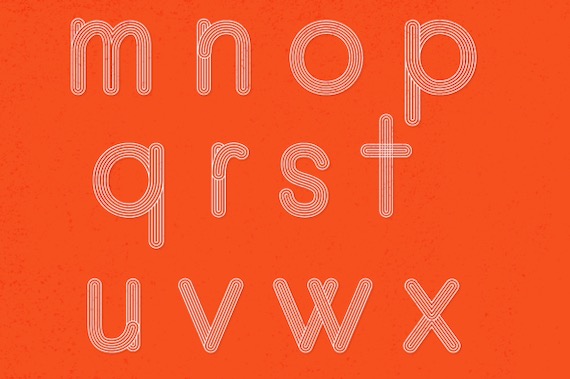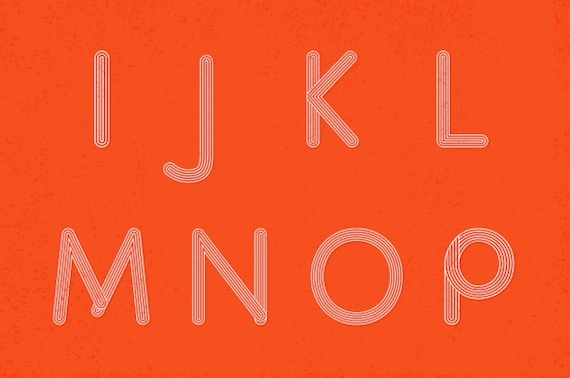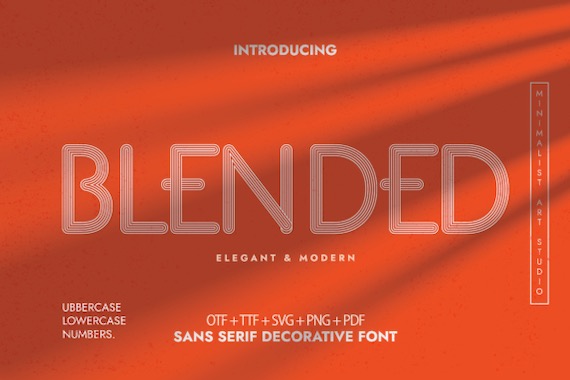
Blended is a cool and classy decorative font that was created and shared by Minimalistart Studio along with a creative lookout. Expertly designed to make your creation look out of this world, this font will look gorgeous on a variety of ideas. This font is ideal for writing web designs, business cards, or pretty much anything else that requires a unique touch.
Blended Decorative Font